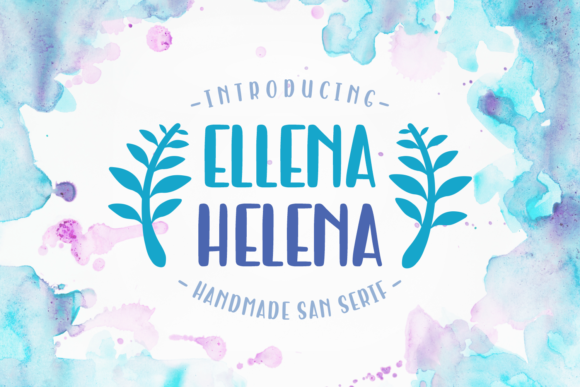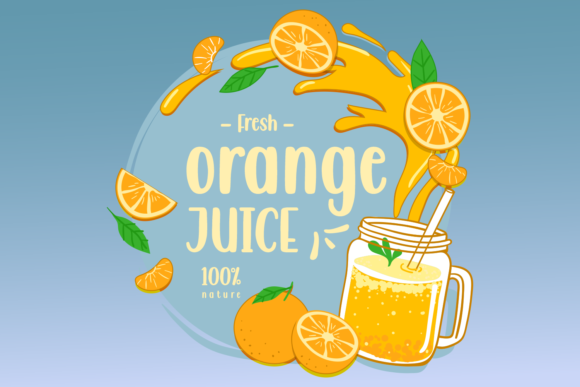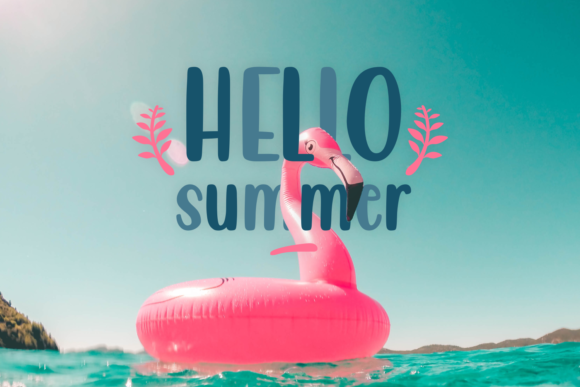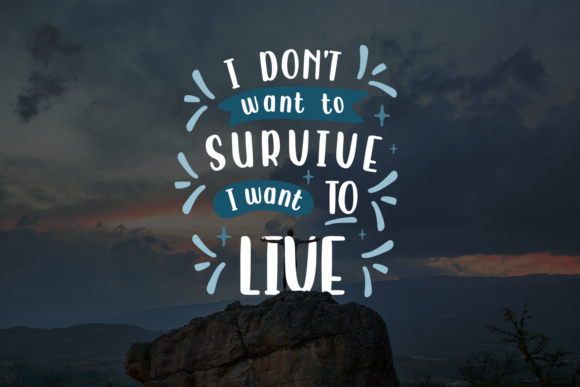
Ellena Helena Font
About Ellena Helena Font
Ellena Helena is a one-of-a-kind handwritten font with a bold feel. Use it to turn any crafting design project into a true piece of art!